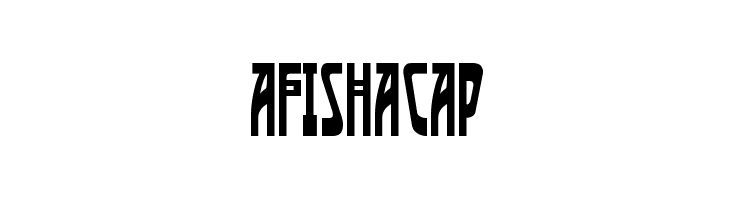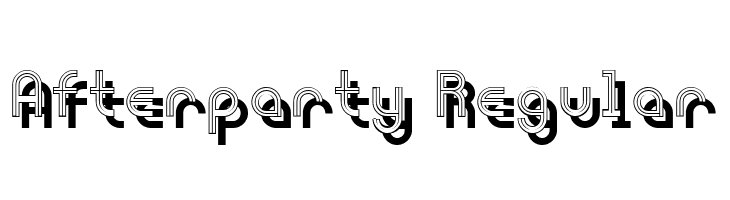
A bold, angular font with a modern, geometric style.
A geometric, modern font with clean lines and rounded edges.
A modern, geometric sans-serif font with rounded edges and uniform width.
A bold and flowing script font with high contrast and elegant cursive style.
A bold, expressive script font with fluid strokes and high contrast.
A playful, textured font with a hand-drawn, crayon-like appearance.
A lively, handwritten font with playful and irregular strokes.
A bold, flowing script font with elegant curves and medium contrast.
A playful, bold font with a hand-drawn, whimsical style.
A bold, decorative font with a 3D shadow effect and geometric structure.